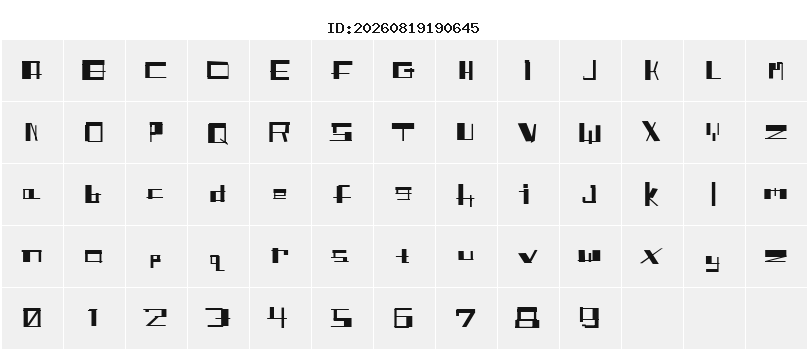
Shitfont Preview
• Font Name: Shitfont
• Full Font Name: Shitfont
• Version: 1.o 1/15/98
About Shitfont.ttf
Shitfont.ttf is a modern, elegant sans-serif font designed for ultimate readability and visual harmony. Perfect for branding, headlines, web design, and print materials.